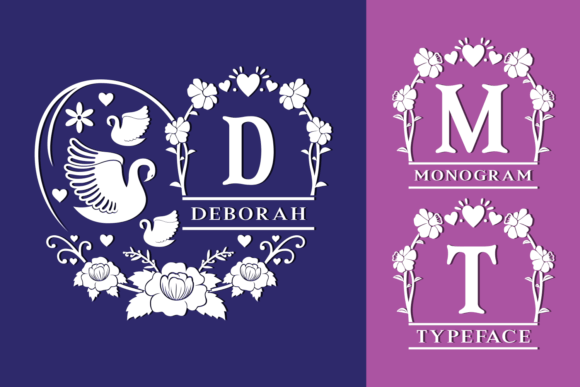
Step into the captivating world of Deborah Font, where enchantment and elegance collide. This decorative font family is a masterpiece crafted by Jasa (7NTypes), designed to add a touch of magic to your creative projects. Picture this: a symphony of intertwining flowers, graceful swans gliding across the page, and hearts dancing in harmony. With Deborah Font, your words will transform into exquisite works of art.
Whether you're a seasoned designer or just starting your creative journey, Deborah Font is your perfect companion. Its versatility knows no bounds, making it the ideal choice for a wide range of projects. Craft eye-catching posters that draw attention from across the room. Create personalized greeting cards that convey your heartfelt emotions with unparalleled charm. Unleash your creativity on t-shirts, branding materials, and quotes, infusing them with a touch of whimsical delight.
Beyond its aesthetic beauty, Deborah Font is a practical choice for designers. Its PUA encoding allows for effortless access to a treasure trove of enchanting glyphs and ligatures. This means you can effortlessly incorporate intricate embellishments and stunning letter combinations into your designs, elevating them from ordinary to extraordinary.
Imagine the joy of your customers when they discover Deborah Font. They'll be captivated by its intricate details and swept away by its romantic allure. Whether they're creating invitations for a special occasion, designing logos that exude elegance, or simply adding a touch of sweetness to their social media posts, Deborah Font will be their trusted companion.
Deborah Font is more than just a font; it's an experience. It's an invitation to let your imagination soar and create designs that resonate with your audience. So, dive into the world of Deborah Font and let your creativity bloom. Experience the magic of this font family and transform your projects into masterpieces that capture hearts and leave a lasting impression.